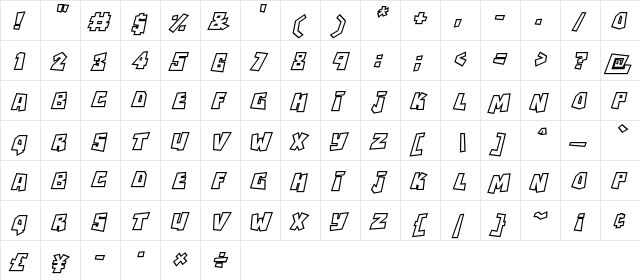
RockBiterOutlines Italic
Design Context for RockBiterOutlines Typeface
RockBiterOutlines brings ornamental detail and strong personality to headlines and identities, where visual impact matters more than quiet functionality. Its italic angle brings a sense of urgency and motion to the letterforms.
Font Pairing: Pair with a clean neutral sans-serif for body copy to let RockBiterOutlines's character lead without overwhelming the composition.
Pro Tip: Use RockBiterOutlines exclusively at display sizes — it was designed to be seen, not read at length. Let a neutral companion handle body copy.